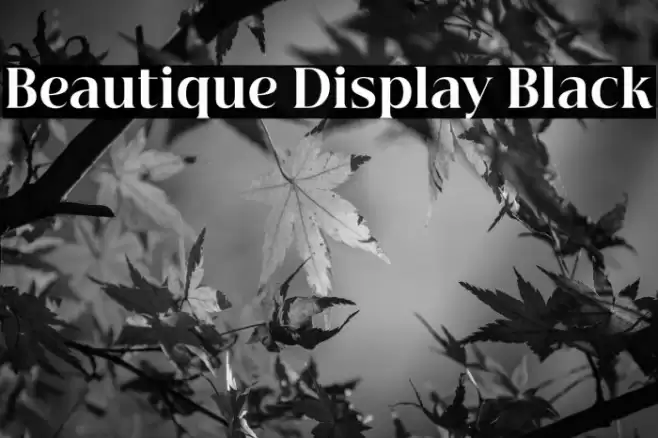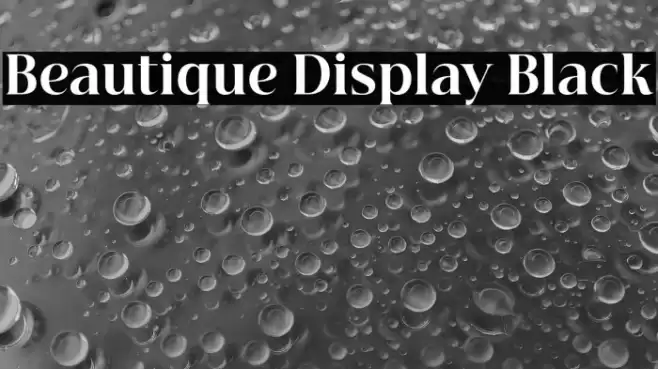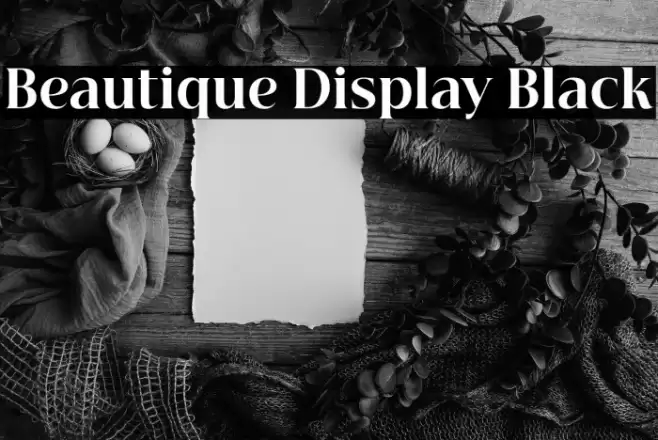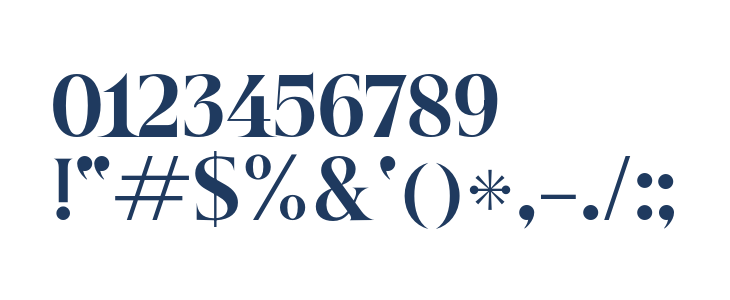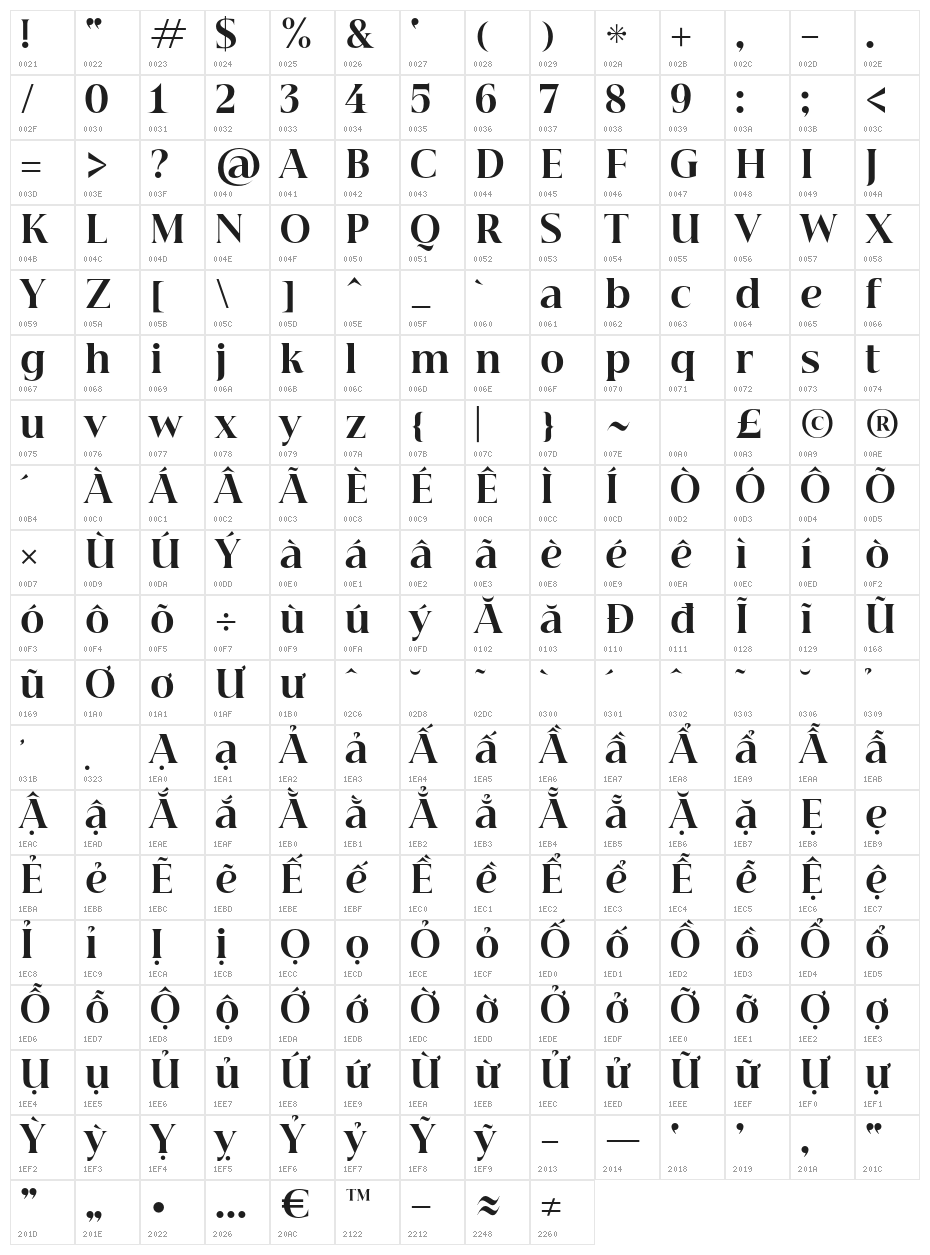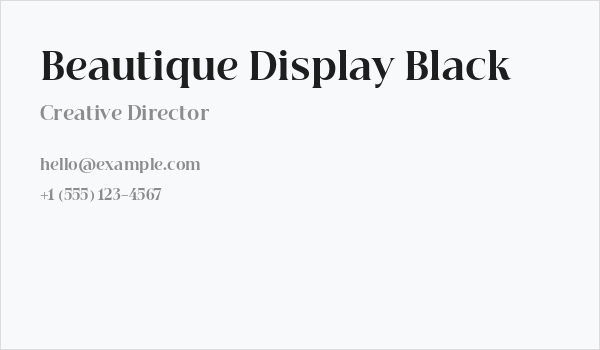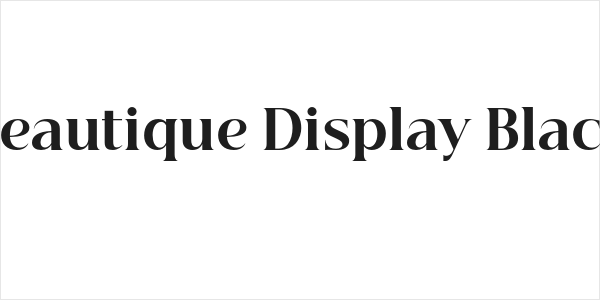
Beautique Display Black Font
Beautique Display Black Description
This font is a striking display typeface characterized by its bold and elegant serif design. The letters exhibit a high contrast between thick and thin strokes, creating a sophisticated and dramatic appearance. The uppercase letters are tall and commanding, while the lowercase letters maintain a balanced and harmonious flow. The numerals are distinct and easily readable, complementing the overall style. Special characters are crafted with the same attention to detail, ensuring consistency throughout the typeface. This font's refined aesthetics make it ideal for high-impact design projects.
A bold, high-contrast serif display font with elegant and dramatic features from Uncategorized fonts.